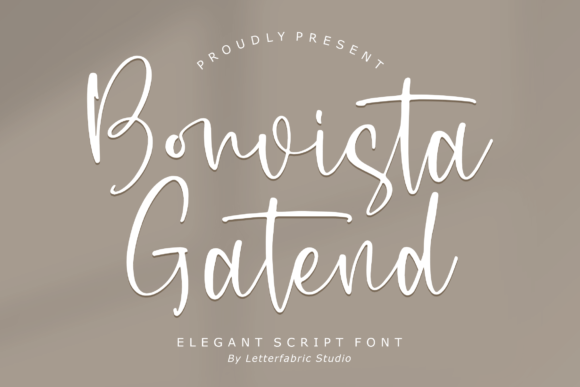
Introducing Bonvista Gatend: The Elegant Script Font for Your Creative Projects
Are you a designer, crafter, or DIY enthusiast looking for a beautiful script font to elevate your projects? Look no further than Bonvista Gatend, an elegant and versatile font perfect for a wide range of applications. In this article, we’ll explore the features and benefits of Bonvista Gatend, and show you how to make the most of this stunning font.
What is Bonvista Gatend?
Bonvista Gatend is a carefully crafted script font, designed to bring a touch of sophistication and elegance to your projects. With its flowing lines, beautiful swashes, and classic letterforms, this font is ideal for creating stunning visual content that stands out from the crowd.
Features of Bonvista Gatend
- Elegant Script Style: Bonvista Gatend boasts a beautiful, cursive script style that’s perfect for creating sophisticated and eye-catching designs.
- Versatile: This font is suitable for a wide range of projects, from logos and branding to homeware designs, product packaging, and more.
- High-Quality: Bonvista Gatend is a high-quality font, carefully crafted to ensure crisp and clear rendering at any size.
Project Ideas with Bonvista Gatend
Bonvista Gatend is an incredibly versatile font, suitable for a wide range of projects. Here are some ideas to get you started:
- Logos and Branding: Create a stunning logo or brand identity with Bonvista Gatend, perfect for businesses, products, or services.
- Homeware Designs: Add a touch of elegance to your homeware designs, including stationery, wall art, and decorative items.
- Product Packaging: Elevate your product packaging with Bonvista Gatend, creating eye-catching labels and packaging that stands out on store shelves.
- Mugs and Ceramics: Create beautiful, personalized mugs, plates, and other ceramics with Bonvista Gatend.
- Quotes and Posters: Design stunning quotes, posters, and prints with Bonvista Gatend, perfect for decorating your home or office.
- T-Shirts and Apparel: Create stylish, personalized t-shirts, hoodies, and other apparel with Bonvista Gatend.
- Book Covers and Stationery: Design beautiful book covers, journals, and stationery with Bonvista Gatend, perfect for writers, students, and book lovers.
- Invitation Cards and Greeting Cards: Create elegant invitation cards, greeting cards, and thank-you cards with Bonvista Gatend.
- Labels and Watermarks: Use Bonvista Gatend to create beautiful labels and watermarks for your products, documents, or photographs.
Tips for Using Bonvista Gatend
To get the most out of Bonvista Gatend, here are some tips to keep in mind:
- Experiment with Font Sizes: Bonvista Gatend looks great at a range of font sizes, from small and delicate to large and bold.
- Play with Swashes: The swashes in Bonvista Gatend add a touch of elegance and sophistication to your designs. Experiment with different swash styles to find the one that works best for your project.
- Combine with Other Fonts: Bonvista Gatend pairs well with a range of other fonts. Experiment with different font combinations to create unique and interesting visual effects.
- Use in Digital and Print Projects: Bonvista Gatend is suitable for both digital and print projects, making it a versatile addition to your font library.